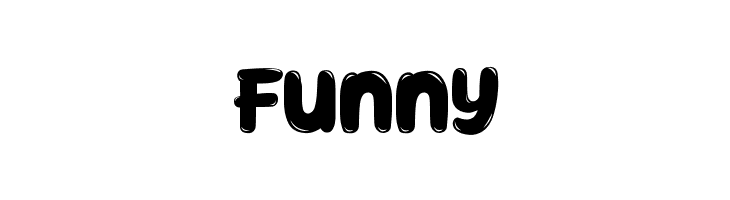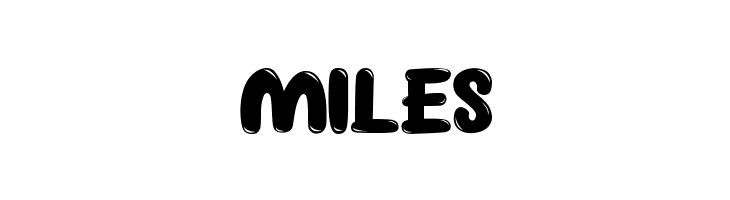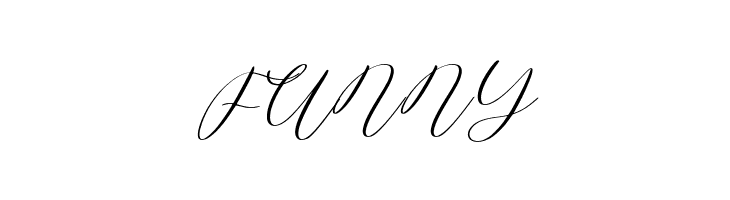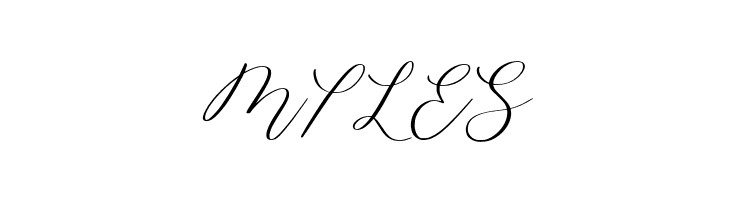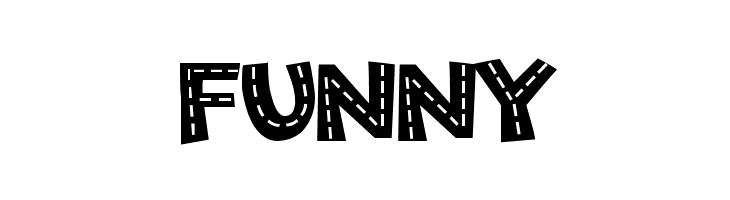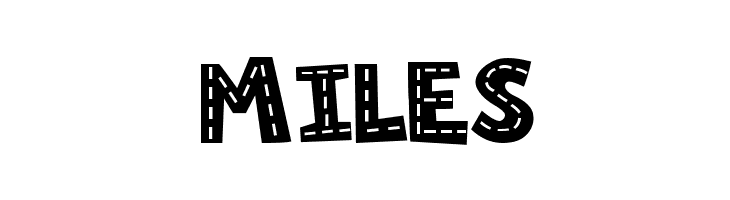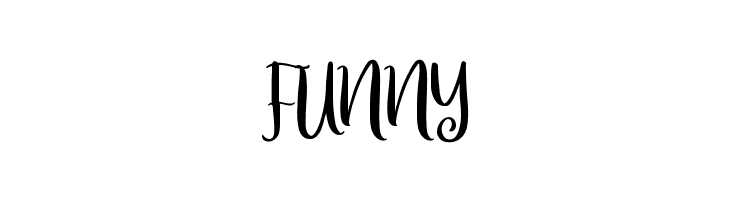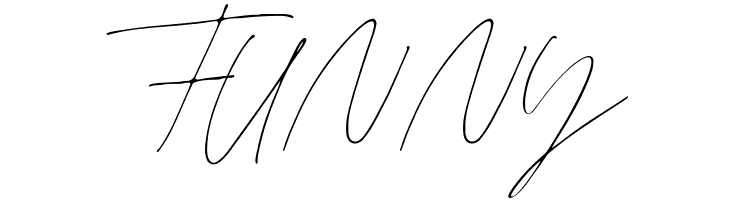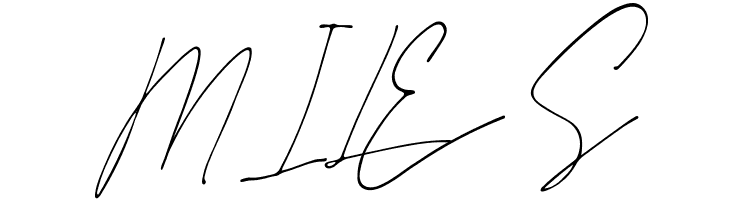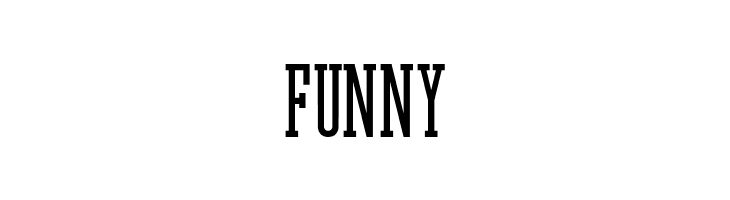
A flowing, handwritten style with elongated, slanted letters and thin strokes.
A whimsical and elegant cursive font with flowing, graceful strokes.
A flowing, cursive font with elegant loops and swashes, offering a handwritten appearance.
A playful and casual handwritten font with fluid, slightly irregular strokes.
A bold, modern font with high contrast and tight spacing, perfect for impactful designs.
A playful, handwritten script font with smooth, connected characters.
A classic blackletter font with ornate, angular strokes and decorative flourishes.
A casual, handwritten script font with a smooth, connected flow.
A lively, handwritten font with flowing, cursive-like strokes.
A bold, italic script font with elegant, flowing curves and a strong presence.
An elegant and flowing script font with decorative swashes.
A bold, modern font with strong, thick strokes and a slightly condensed style.
A playful and elegant script font with flowing, interconnected letters.
A bold, hexagon-enclosed decorative font with a modern, playful style.
A playful, handwritten font with irregular strokes and an organic feel.
An elegant and ornate script font with intricate swirls and loops.
A lively and elegant script font with flowing, cursive letterforms.
A fluid and elegant handwritten font with smooth, flowing lines.
A playful, hand-drawn font with bold strokes and a whimsical style.
A whimsical and decorative serif font with playful curls and loops.
A bold, distressed font with a playful and rugged aesthetic.
A bold, 3D cartoon-style font with playful textures and strong outlines.
A bold, 3D italic font with a playful, textured design.
A bold, condensed font with a distressed, rugged texture.
A bold, distressed, condensed italic font with a rugged and dynamic style.
A bold, decorative font with distressed, blocky characters for impactful designs.
A bold, expanded, and italicized decorative font with playful cut-out patterns.
A bold, italic, and decorative font with unique cut-out patterns.
A bold, playful font with a leftward slant and unique cutout details.
A bold, graffiti-inspired font with dynamic and playful characters.
A bold, playful font with a chunky, irregular style and a slightly distressed appearance.
A bold, playful font with chunky letters and irregular cutouts.